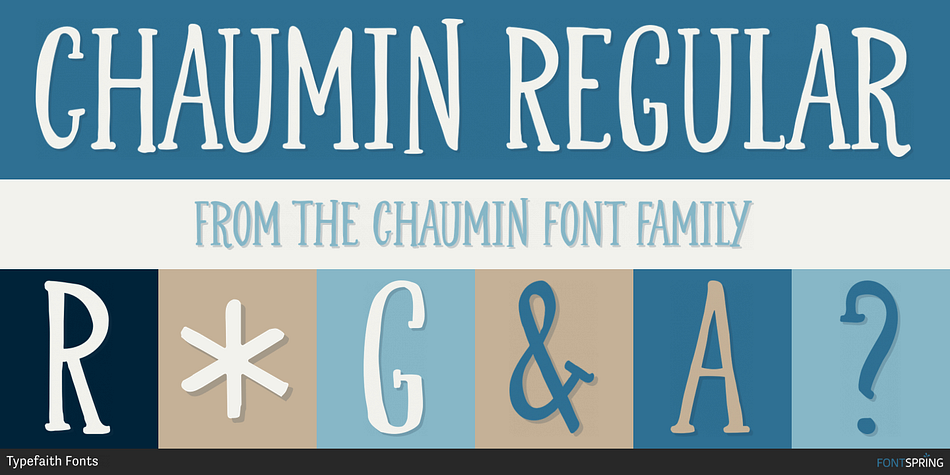
Chaumin Regular
Designed by Léon Hulst, Chaumin is a hand display font family. This typeface has three styles and was published by Typefaith Fonts.
Chaumin is a fun, usable handwritten font made to convey the feeling of handwritten charm and personality! Chaumin is available as a Regular and Bold.
Foundry Typefaith Fonts
Designer Léon Hulst